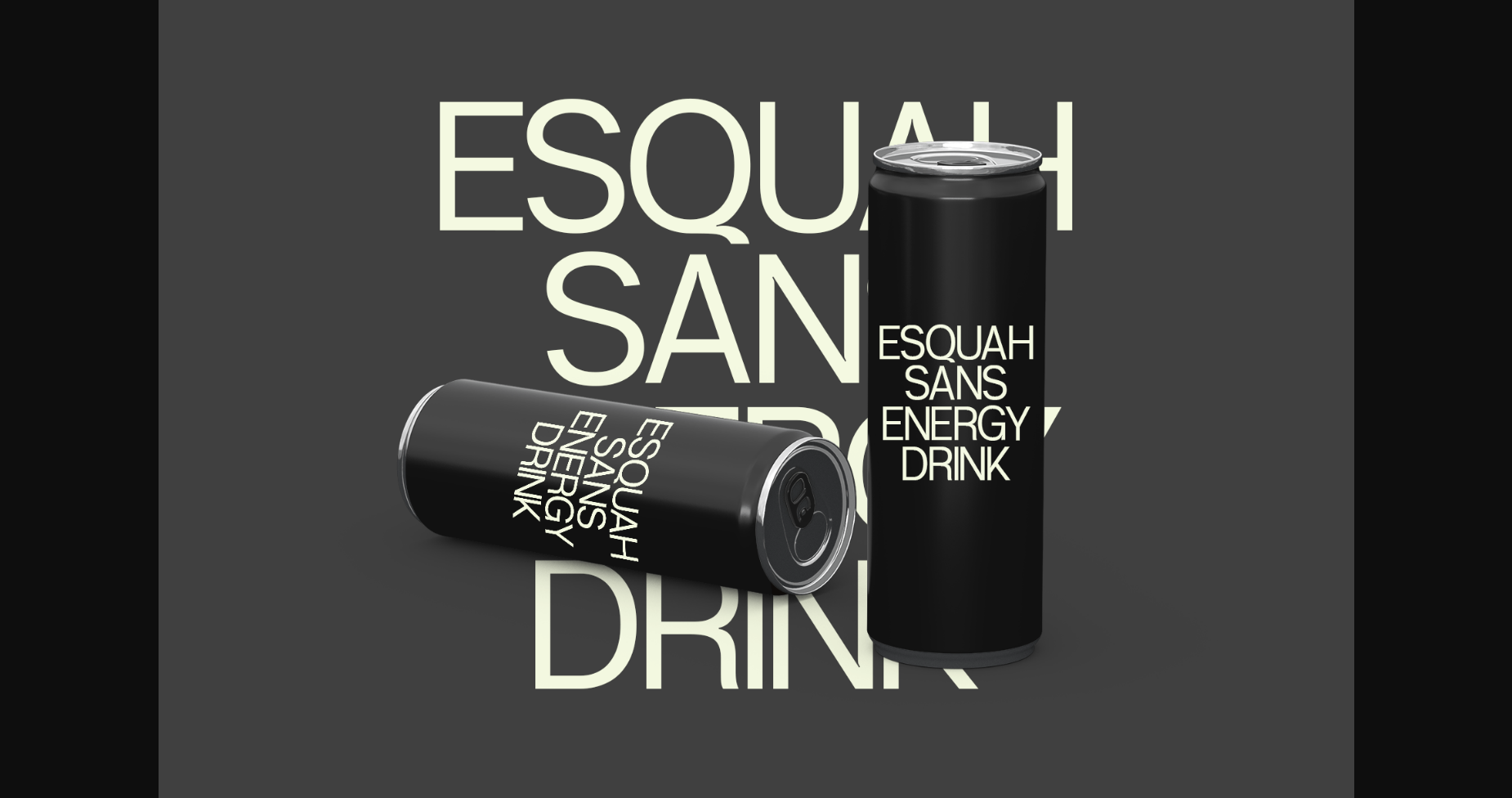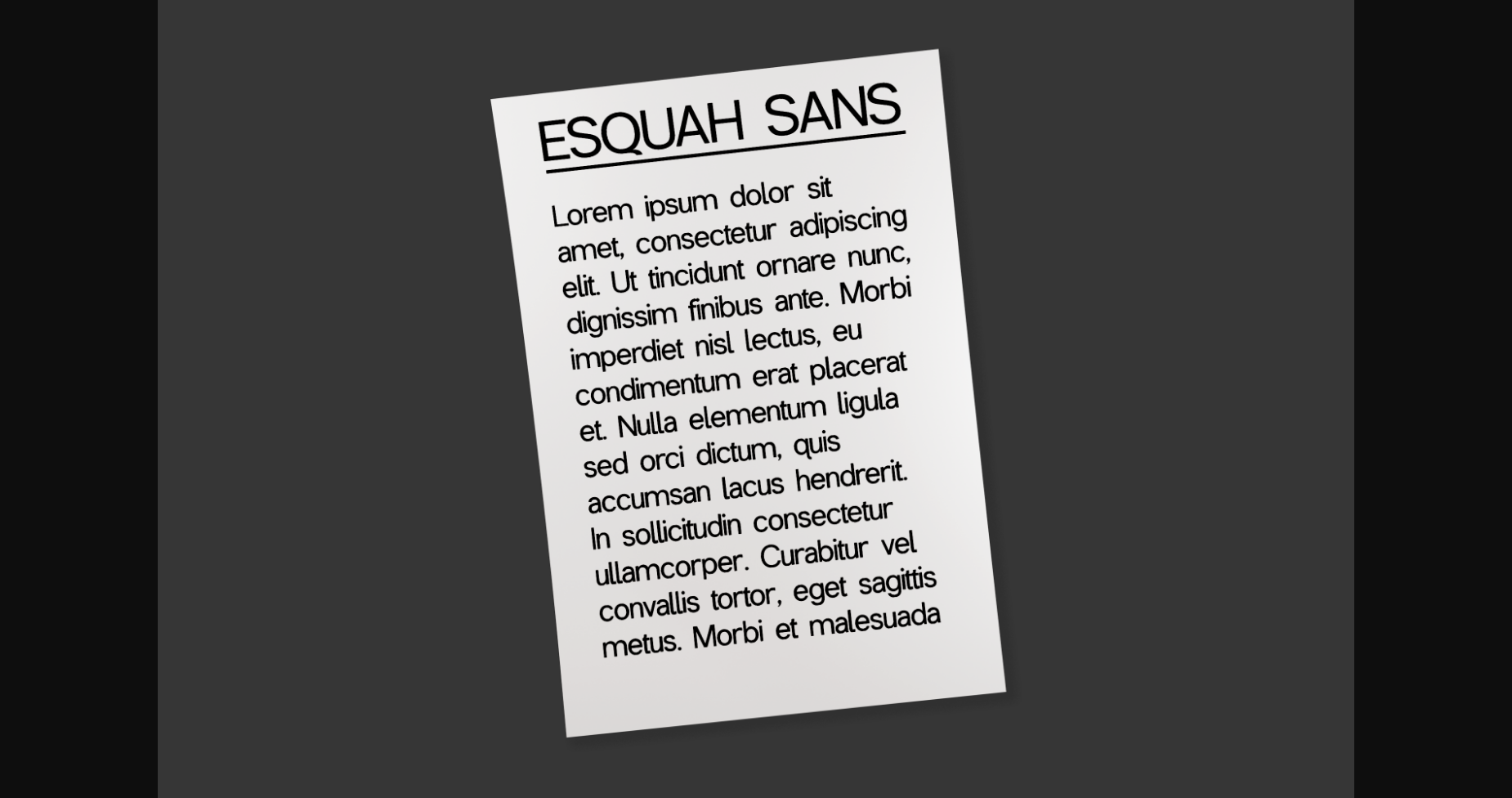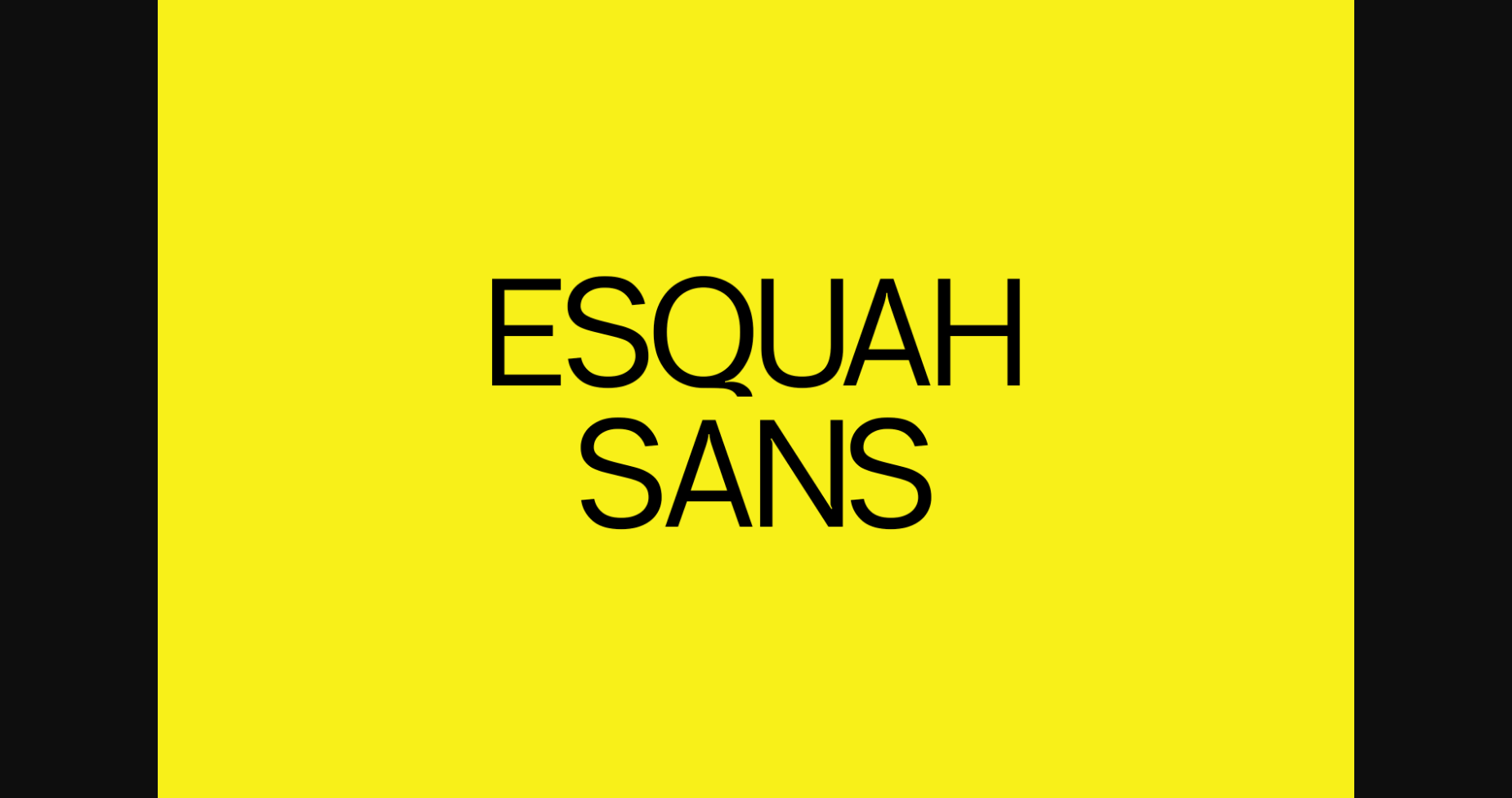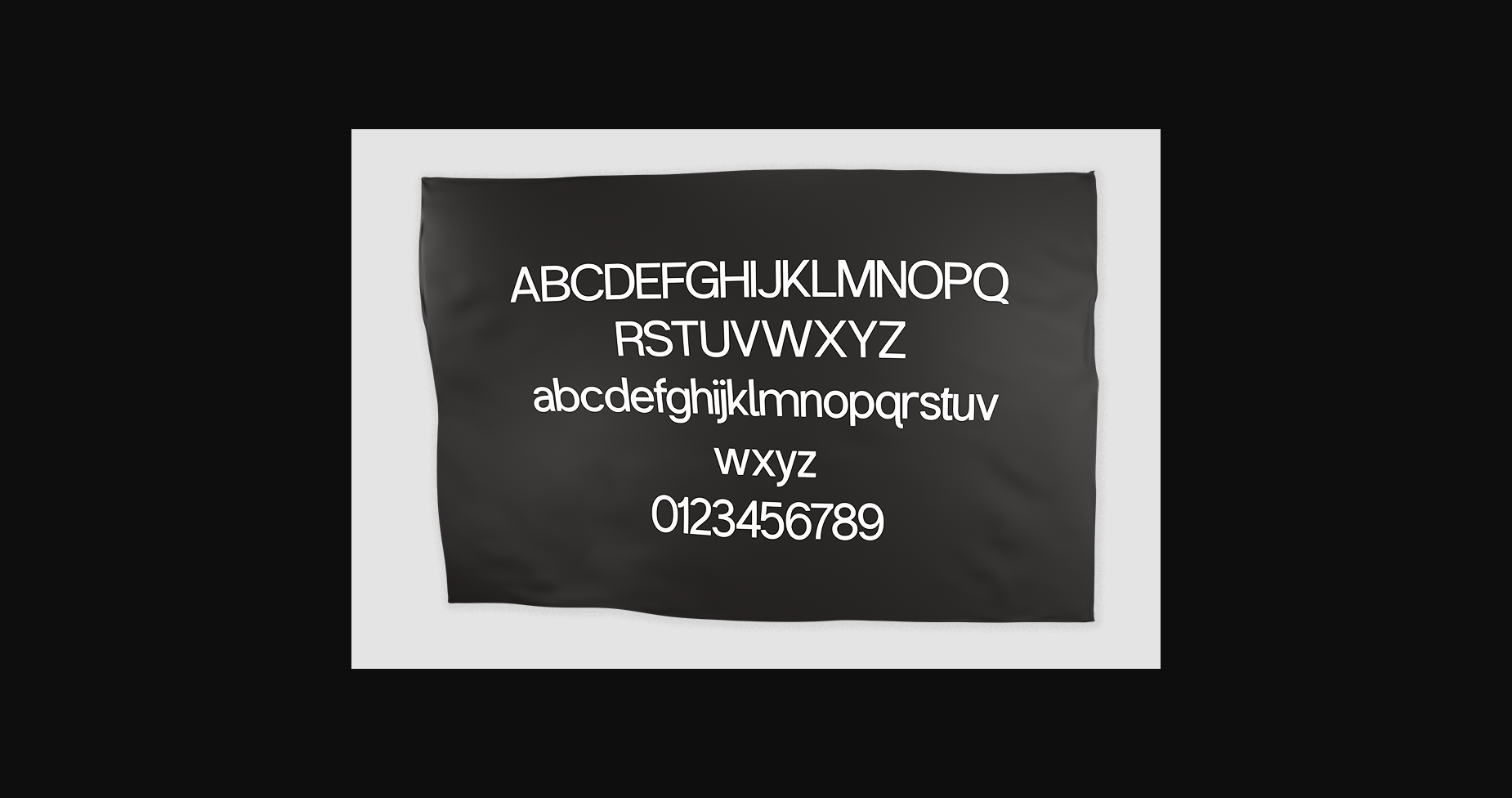
Esquah Font
About Esquah Font
Esquah is a modern and versatile sans serif font. It can easily be matched to an incredibly large set of projects, so add it to your creative ideas and notice how it makes them stand out!